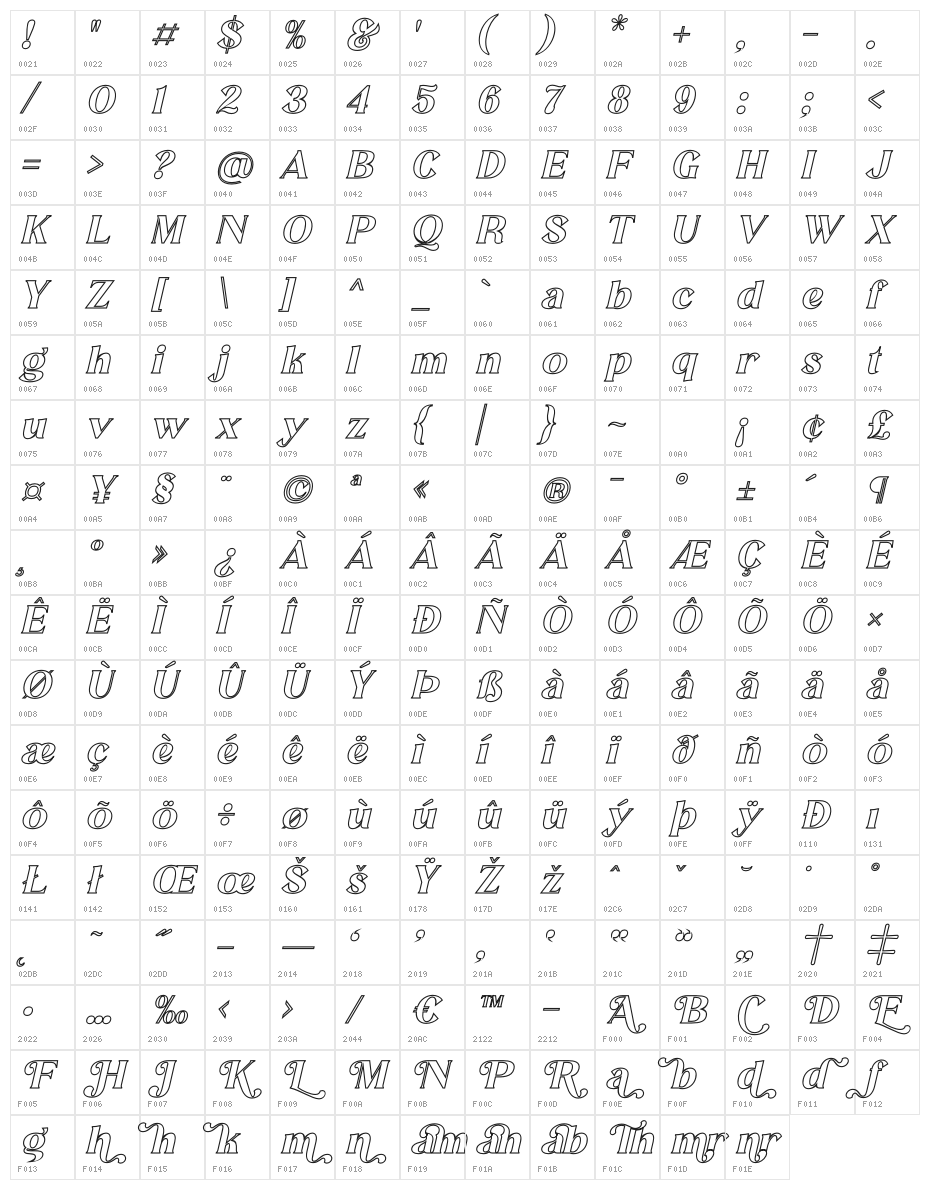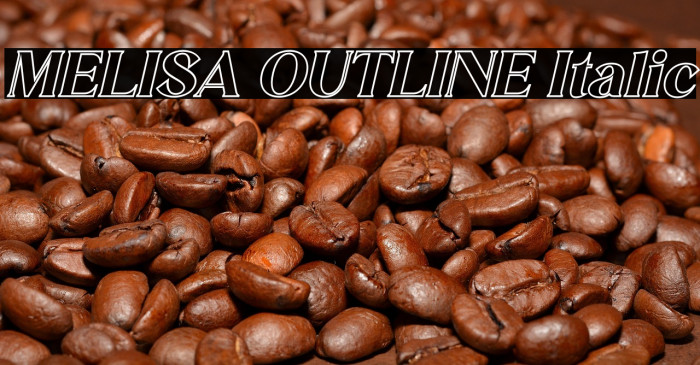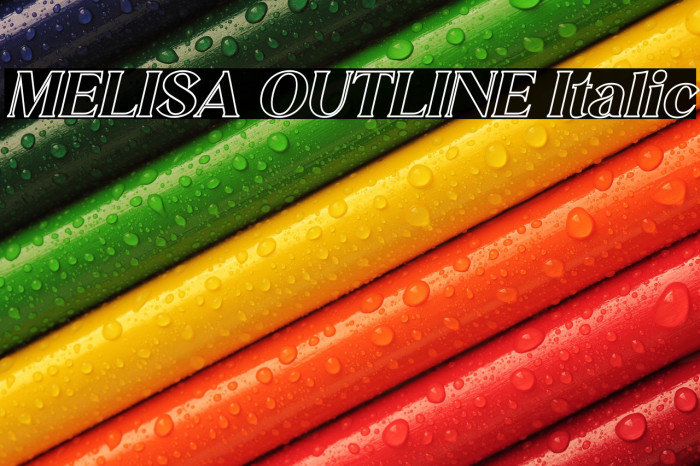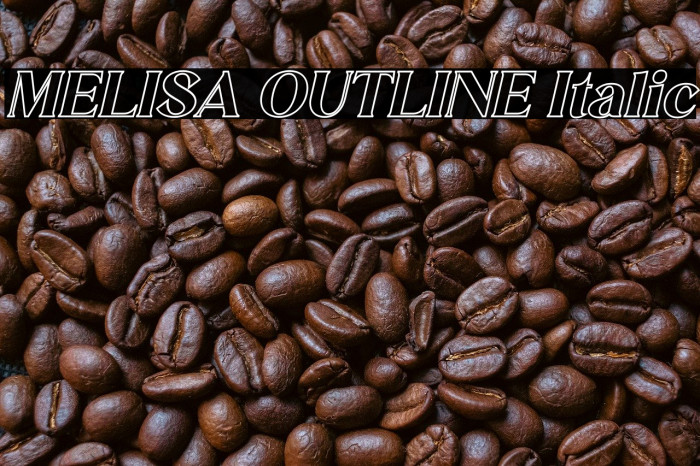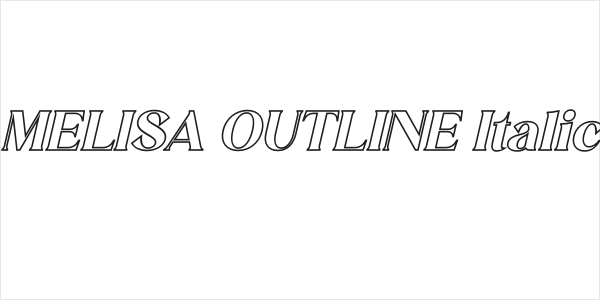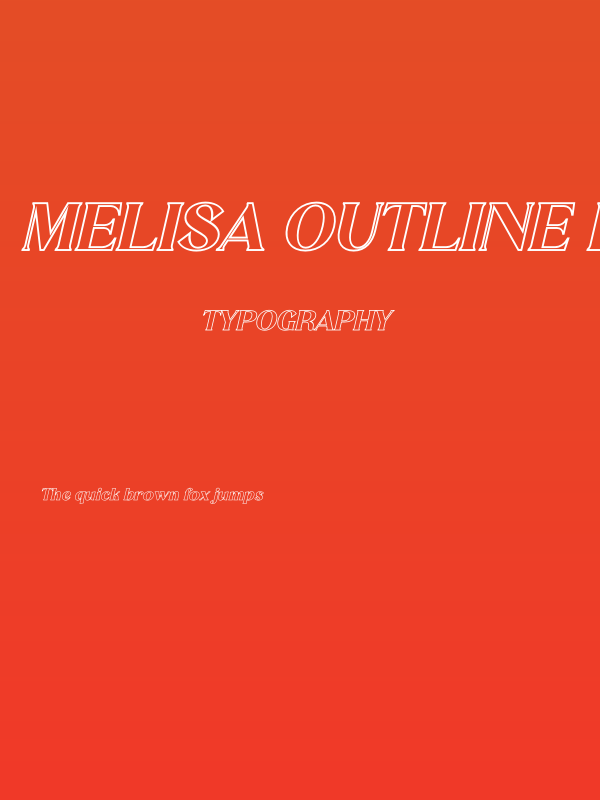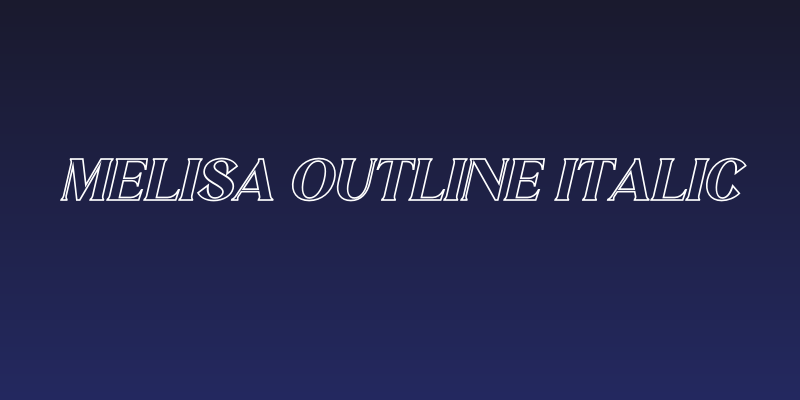
MELISA OUTLINE Italic Font
MELISA OUTLINE Italic Description
This font features a distinct outline style with a slanted, italicized form, giving it a dynamic and elegant appearance. The uppercase and lowercase letters maintain a consistent stroke width, creating a uniform look across all characters. The numerals are designed to match the alphabet's style, ensuring a cohesive appearance. Special characters are included, each with the same outlined, italicized design. The font's overall aesthetic is modern and stylish, making it suitable for various creative applications.
| Proposed Projects | Ideal for branding, posters, headlines, and creative design projects that require a stylish and modern touch. |